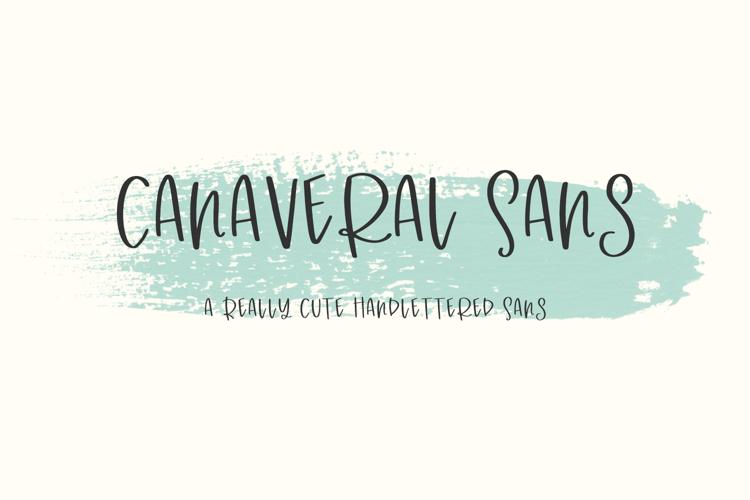
Canaveral Sans
Introducing Canaveral Sans, a cute all-caps handlettered font. The lowercase character set provides an alternate capital letter option, so you can type in all uppercase, all lowercase, or mixed case to customize the look of your design!
Canaveral Sans is best for:
- quote graphics for social media that have a whimsical, playful look & feel
- logos + branding needing a fun & funky touch
- website design + website accents
Canaveral Sans includes:
- full upper + lowercase characters - lowercase characters are also in caps, but present a different look & feel than the uppercase characters